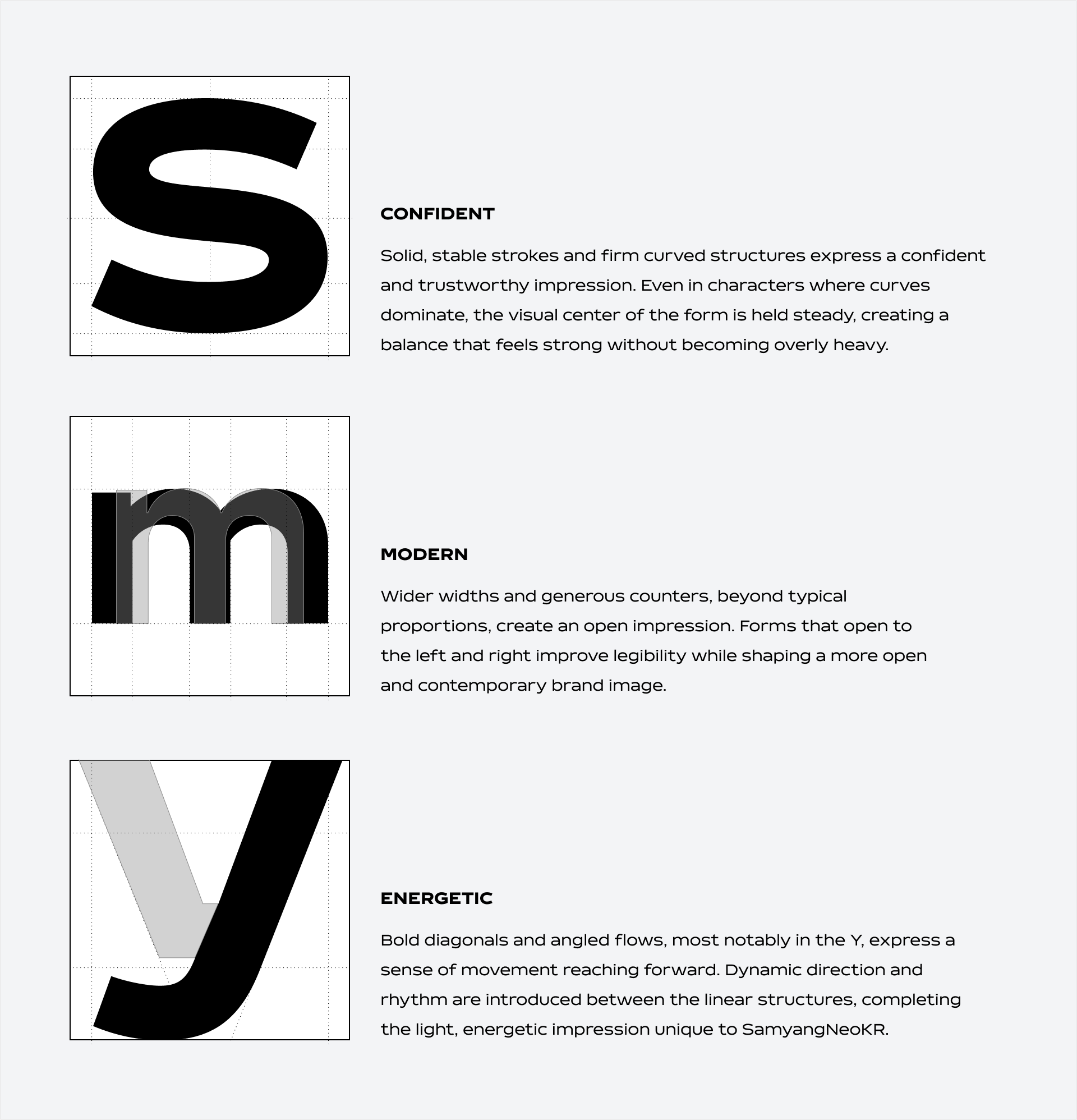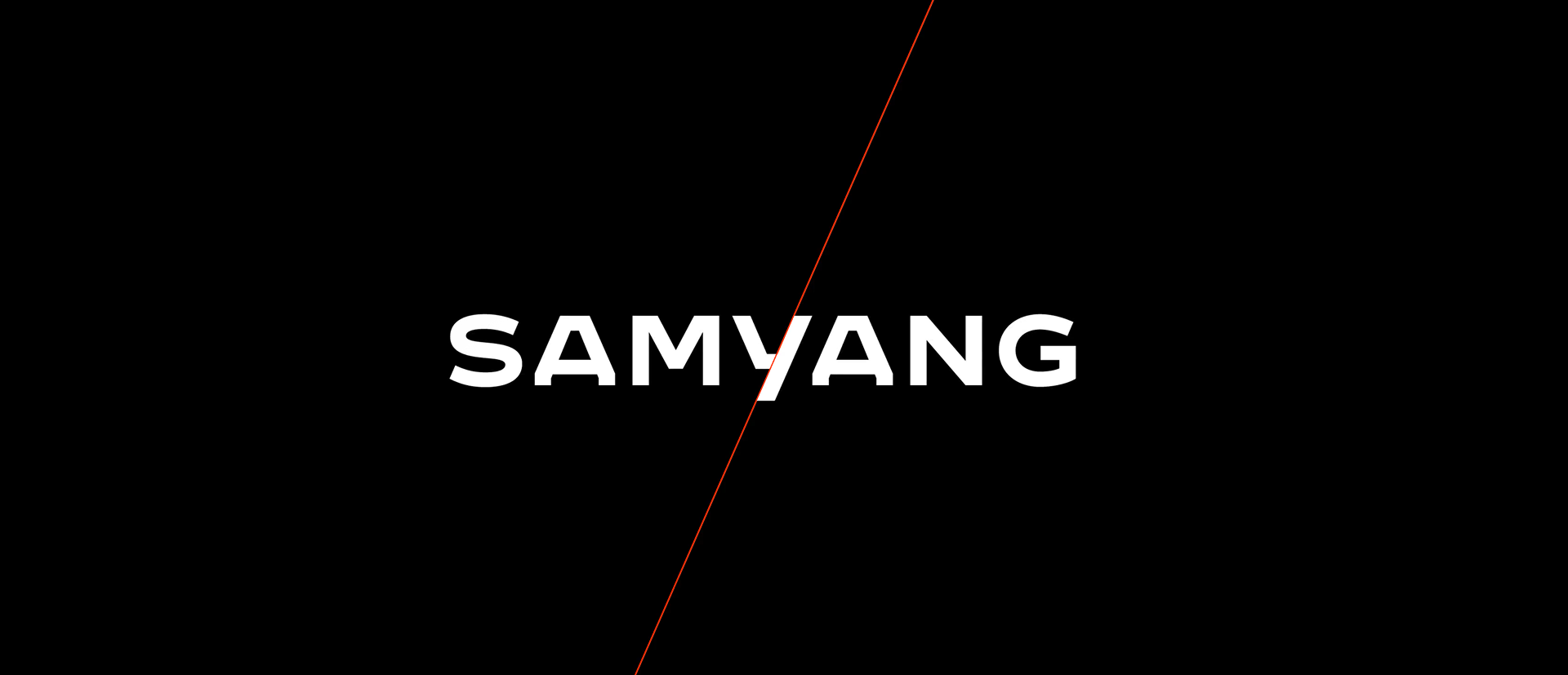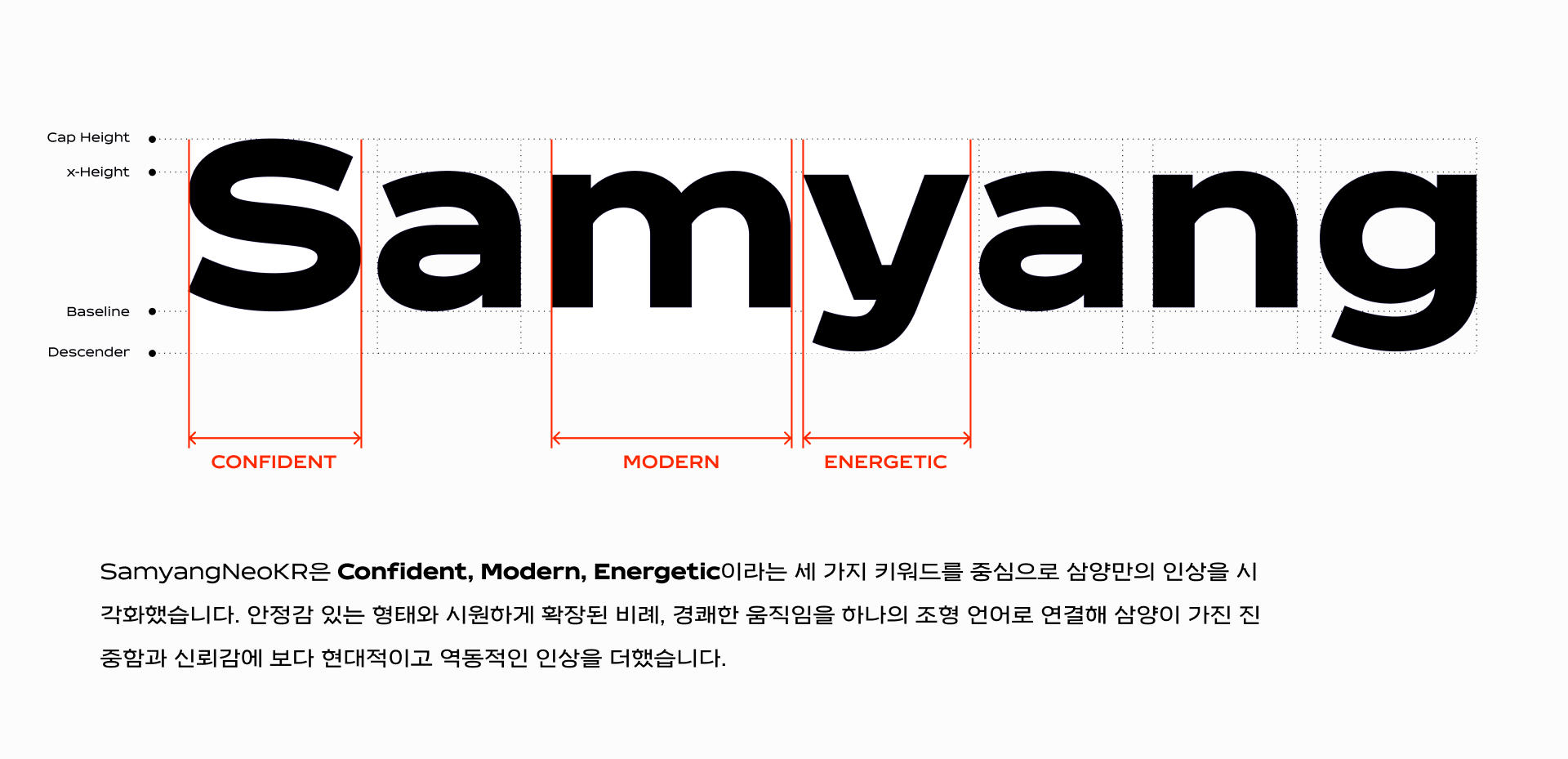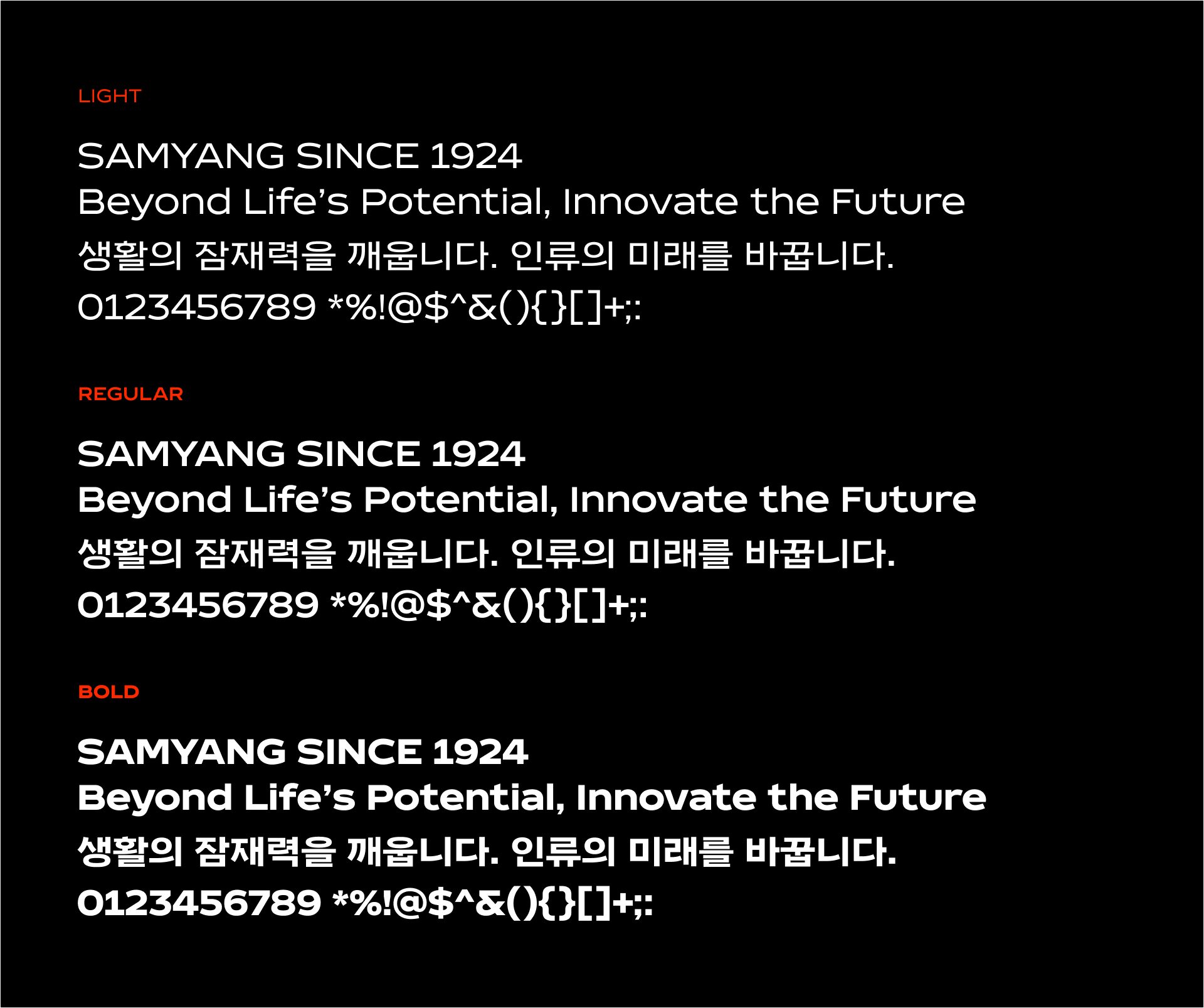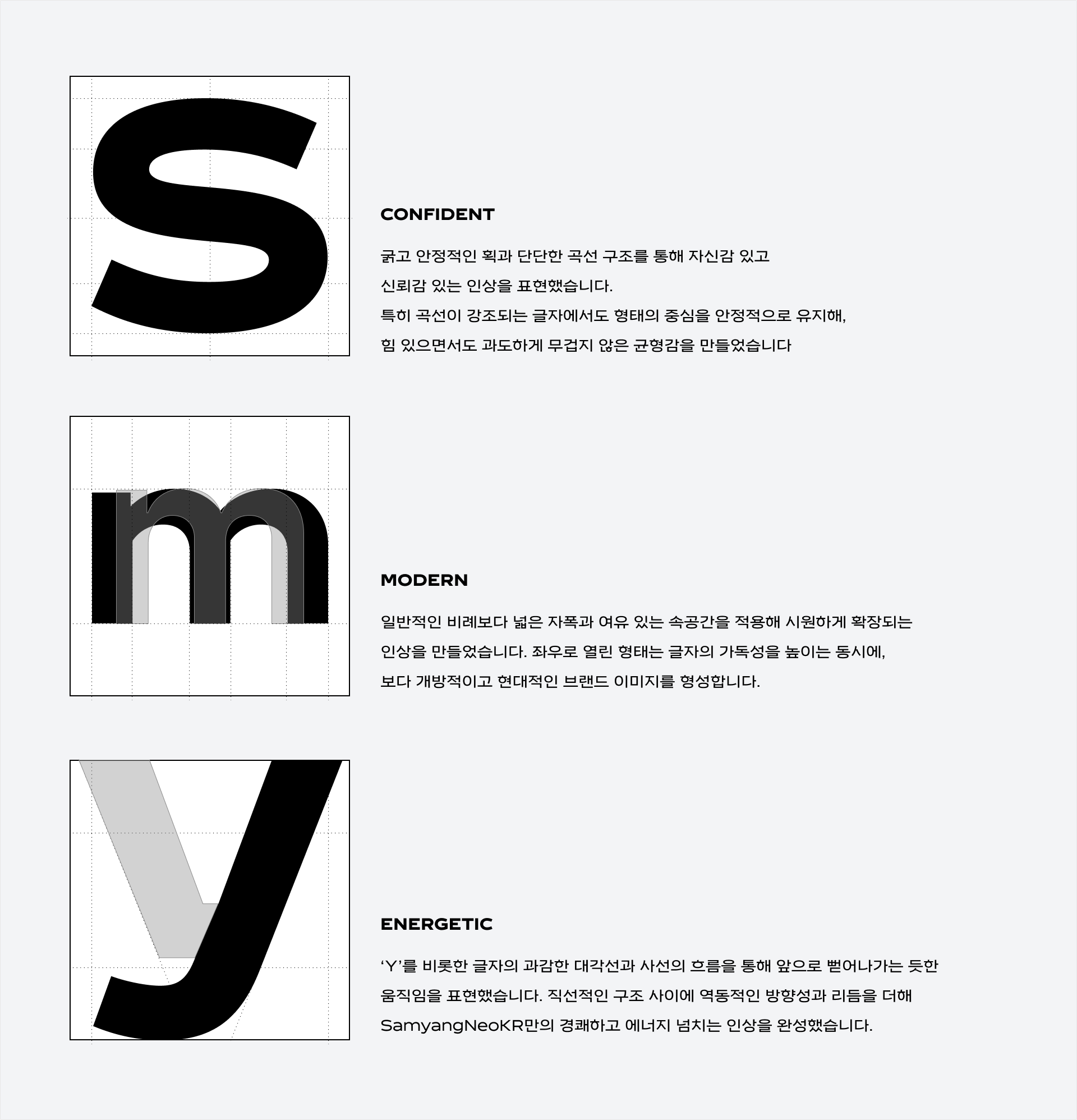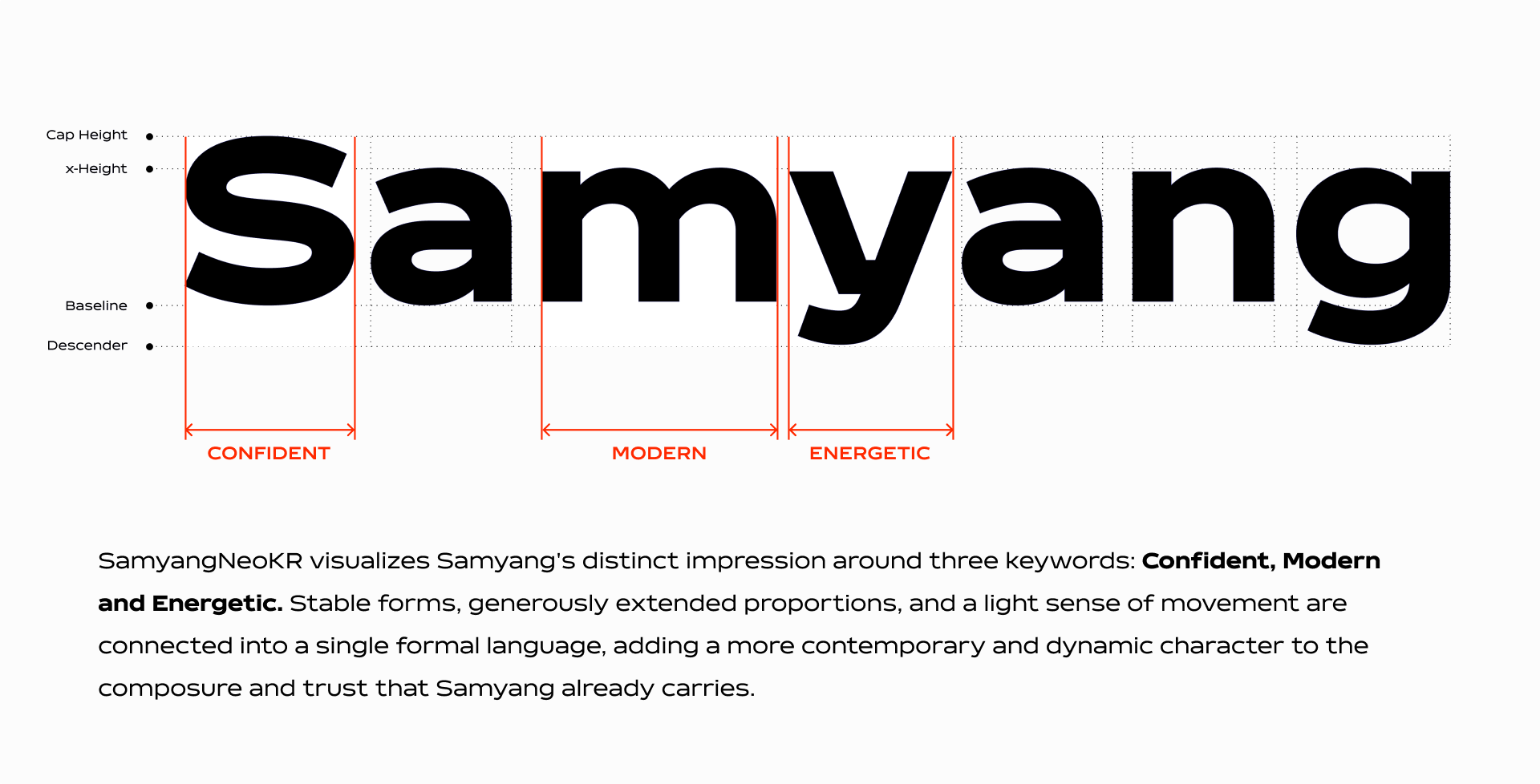
Samyang Neo KR
ใSamyang Neo KRใ was designed as part of Samyang Holdings’ rebranding, to complement the Latin typeface developed by international branding agency Brody Associates. As the brand moved away from the lighter impression of its previous logotype toward a more refined and trustworthy identity, key characteristics of the Latin typeface—including its wide character proportions, diagonal structures, and the strong diagonal strokes of the “Y”—were translated into the Hangul design. These shared design principles allow the Latin and Hangul scripts to work together seamlessly as a unified type family.